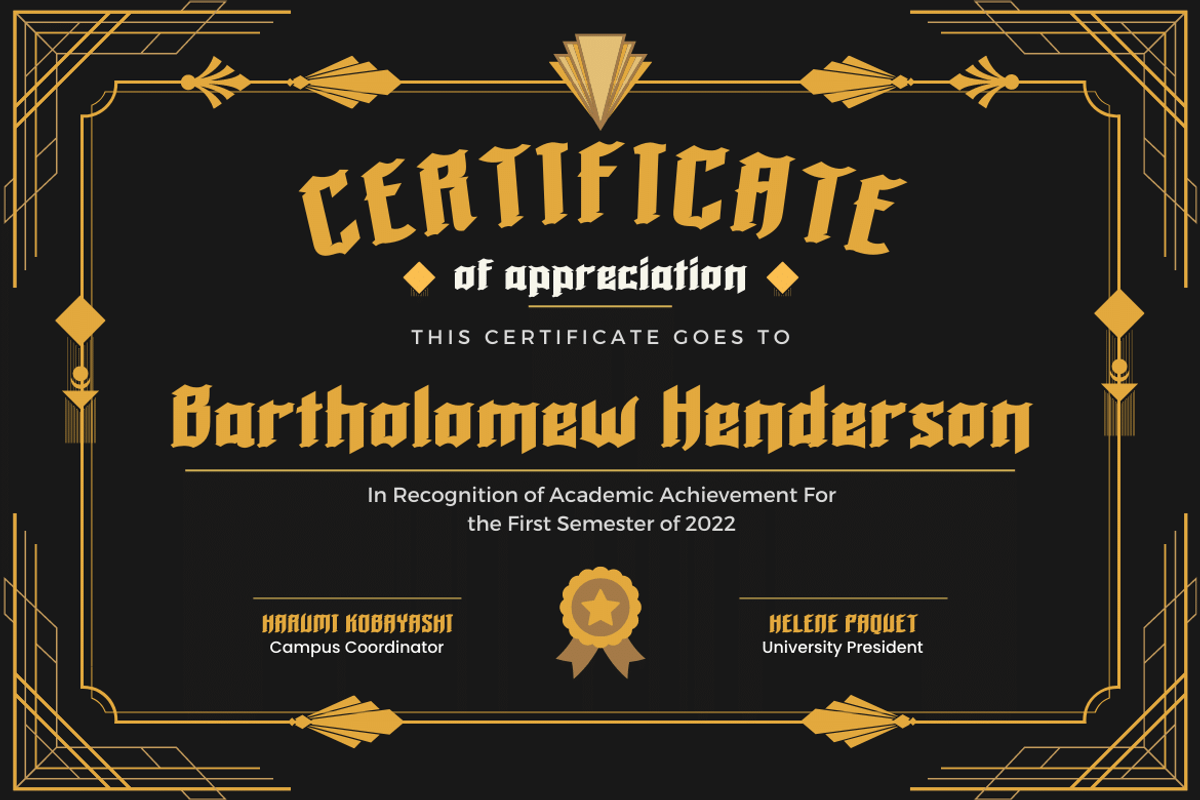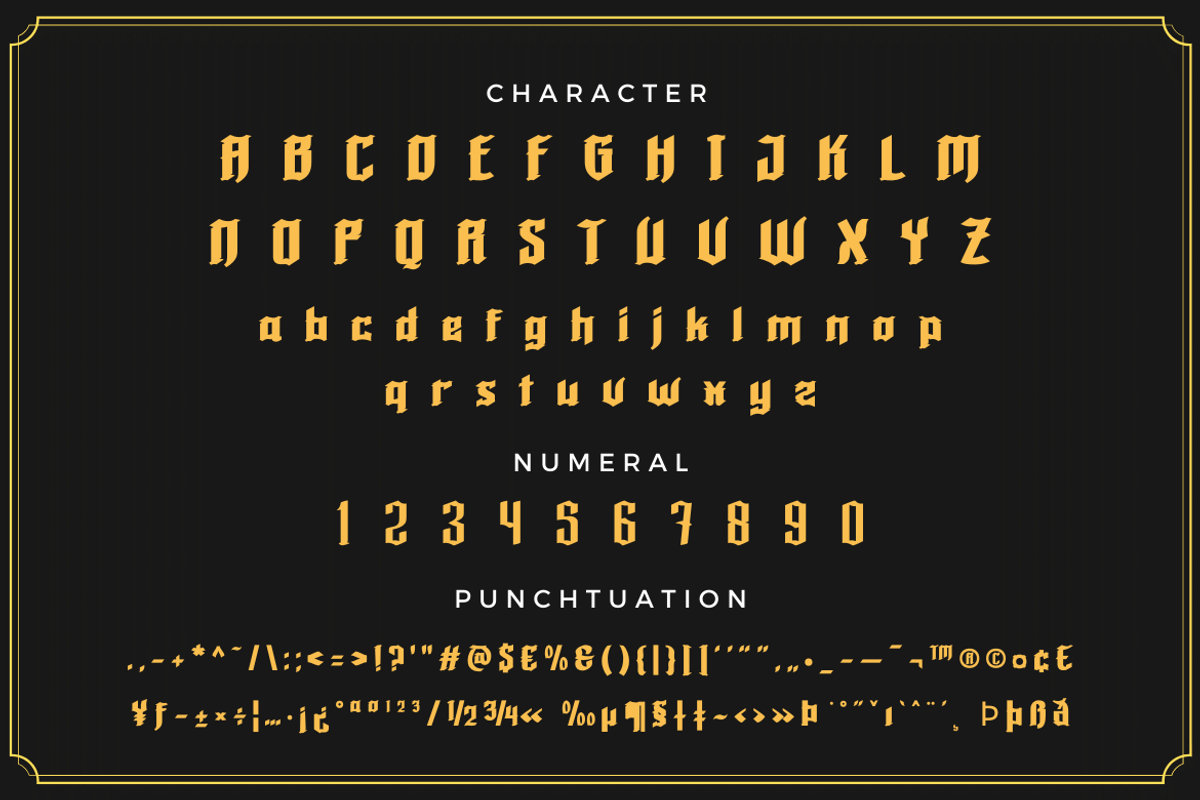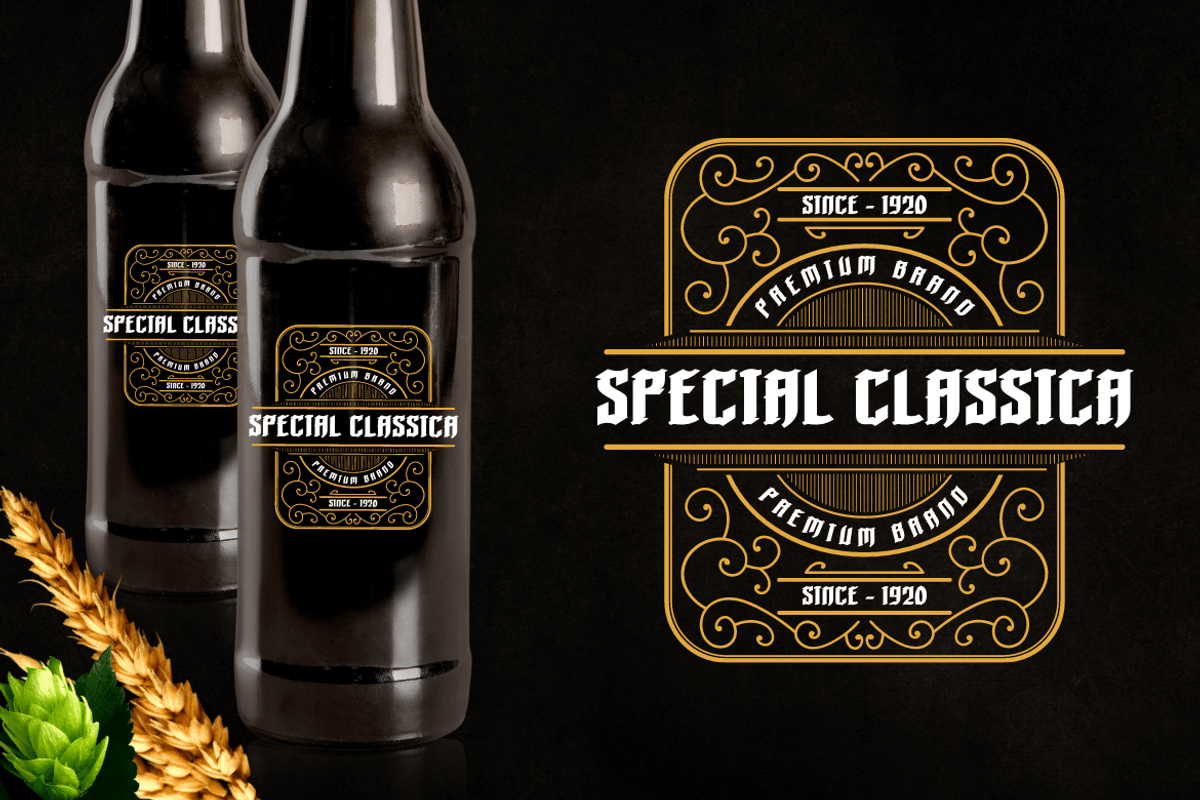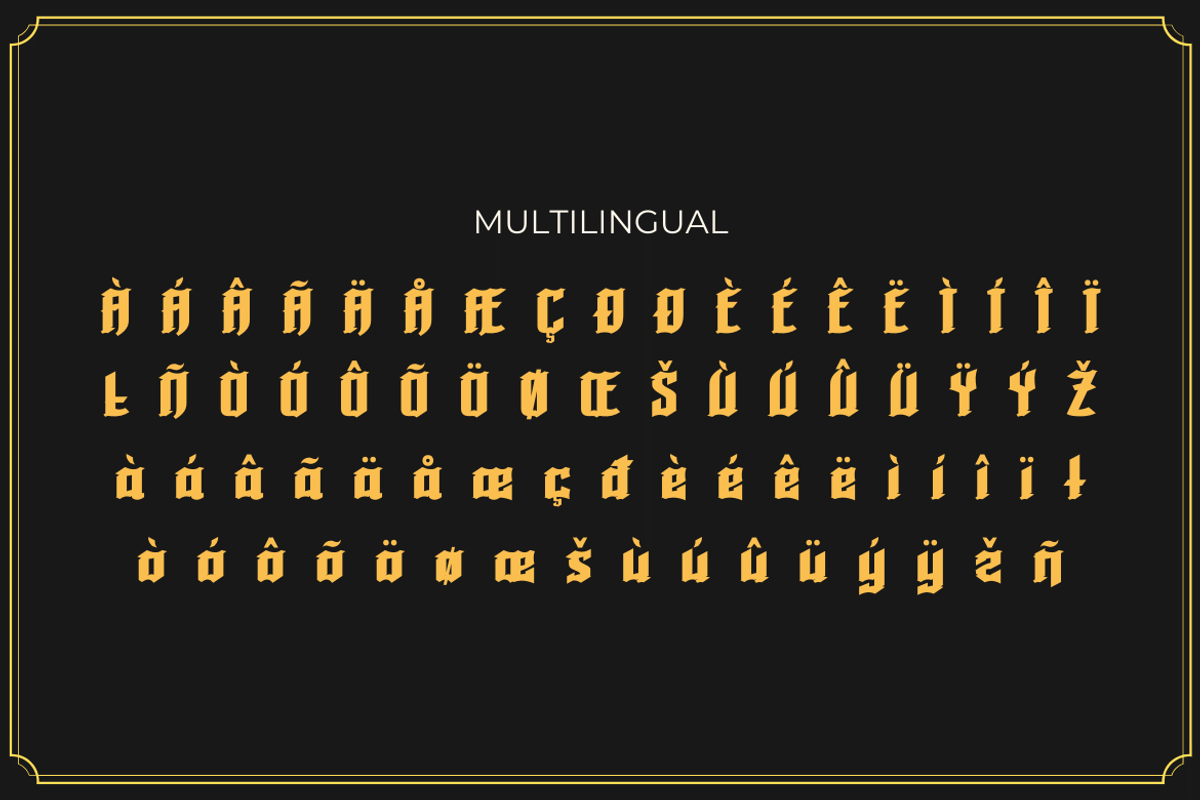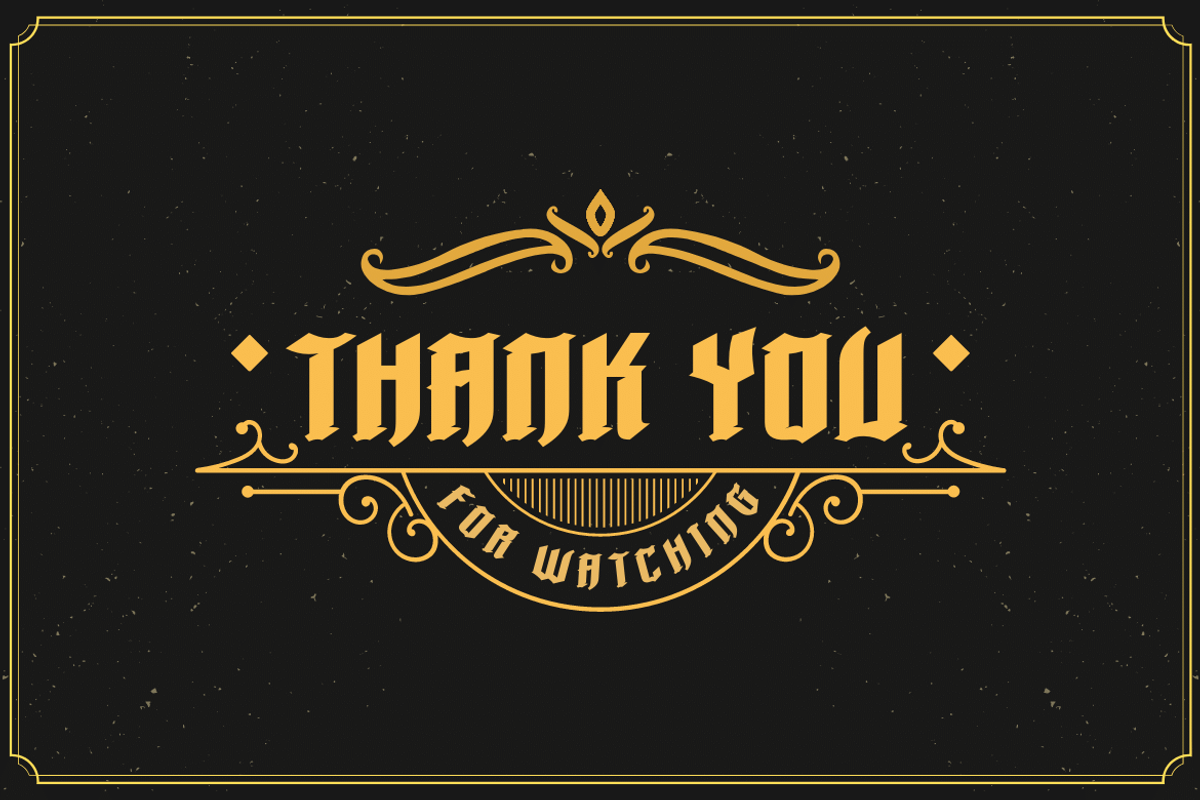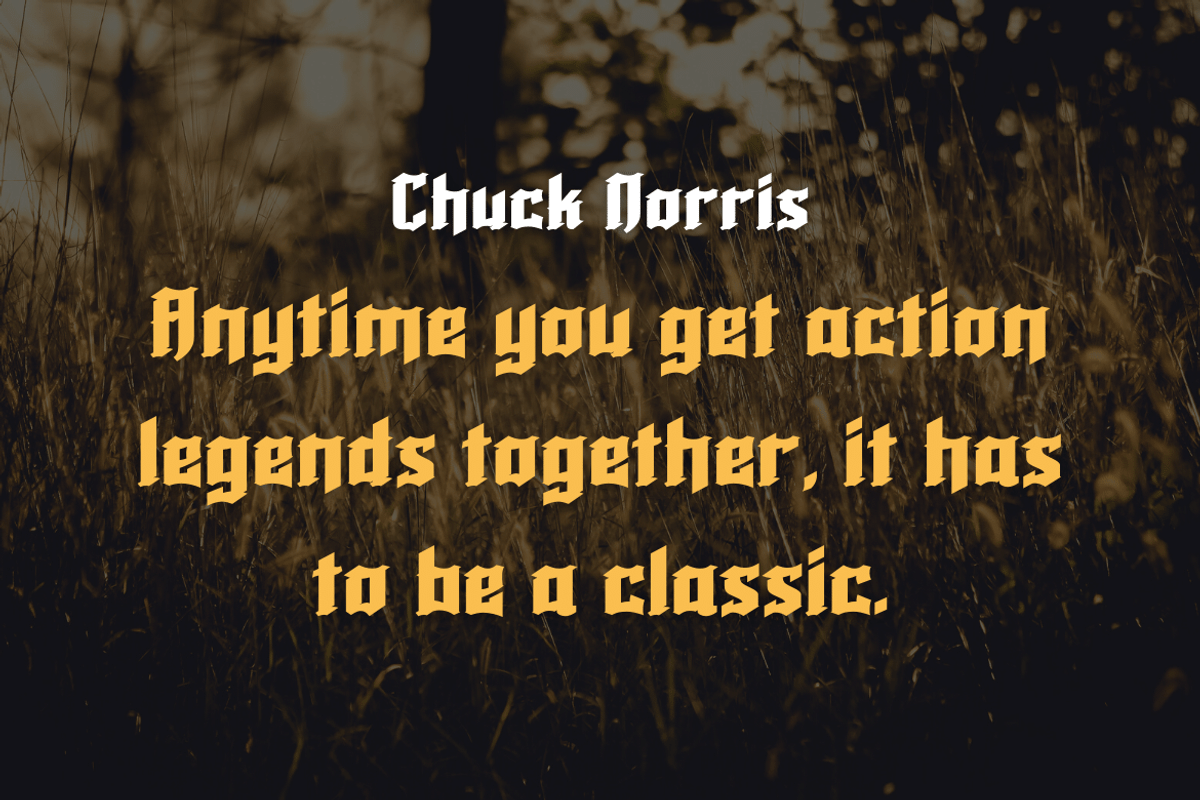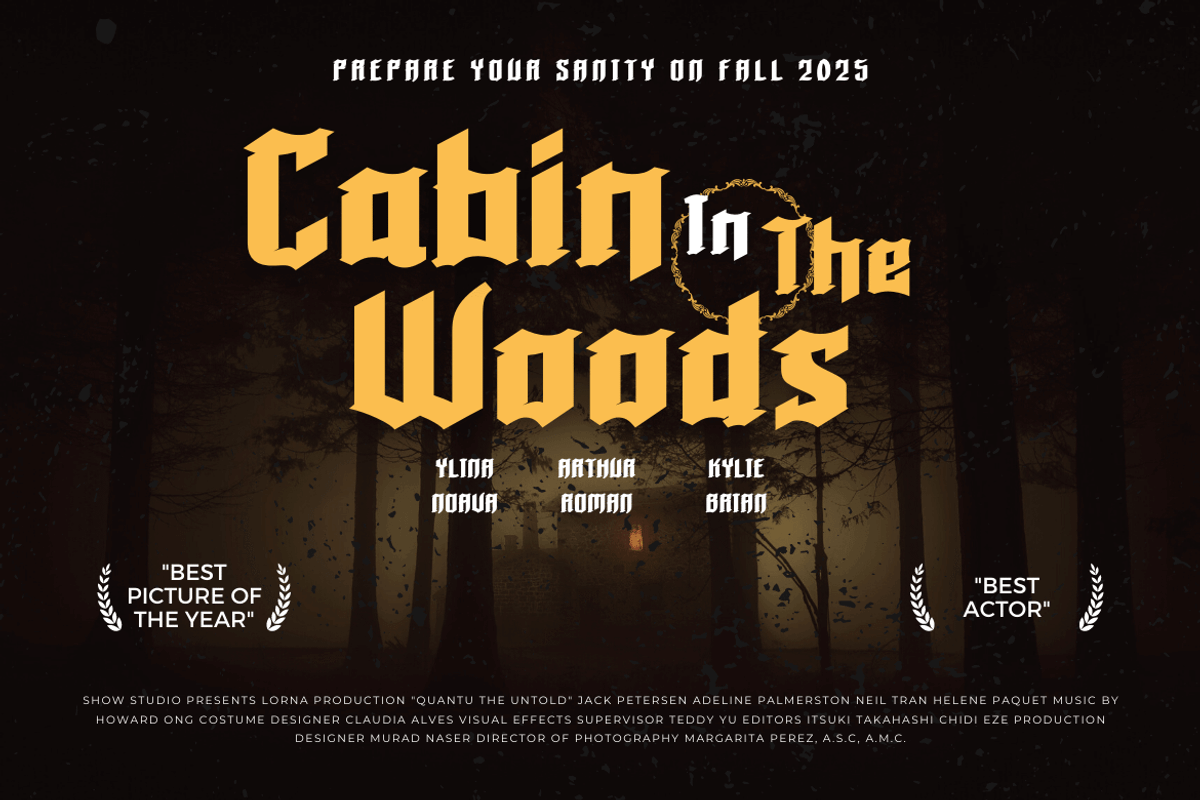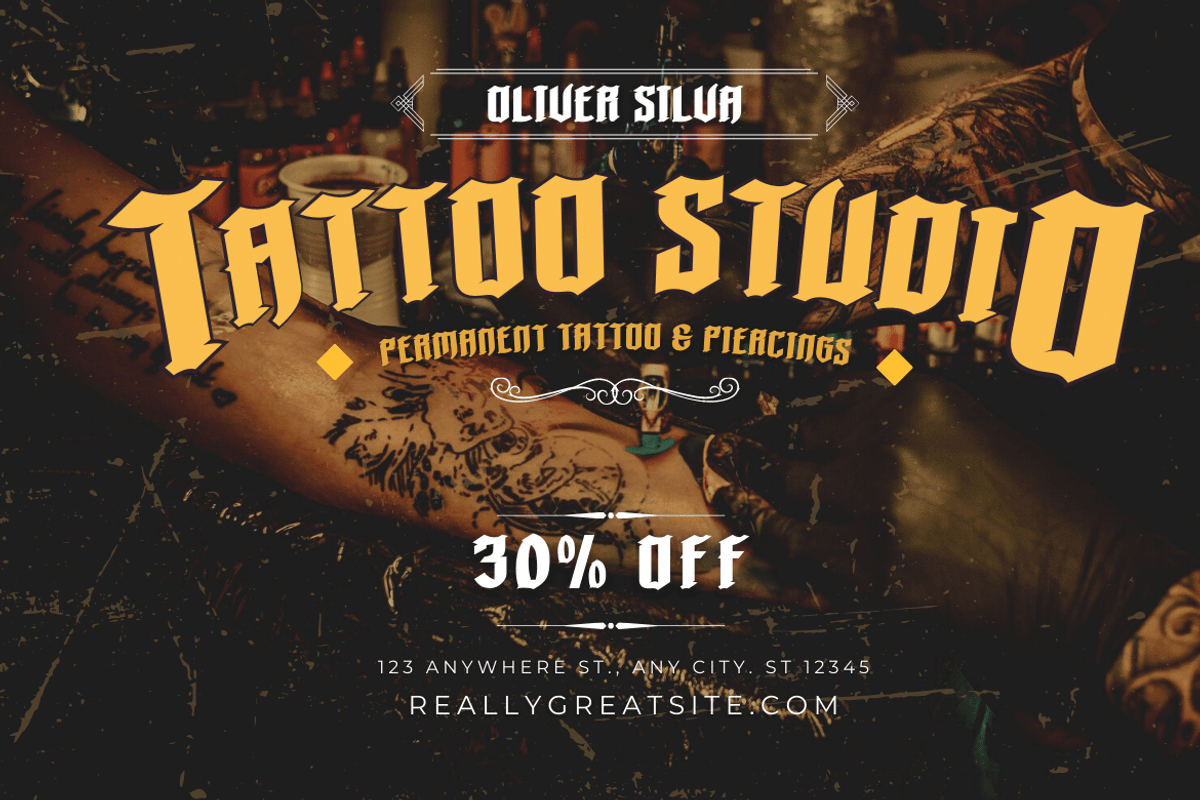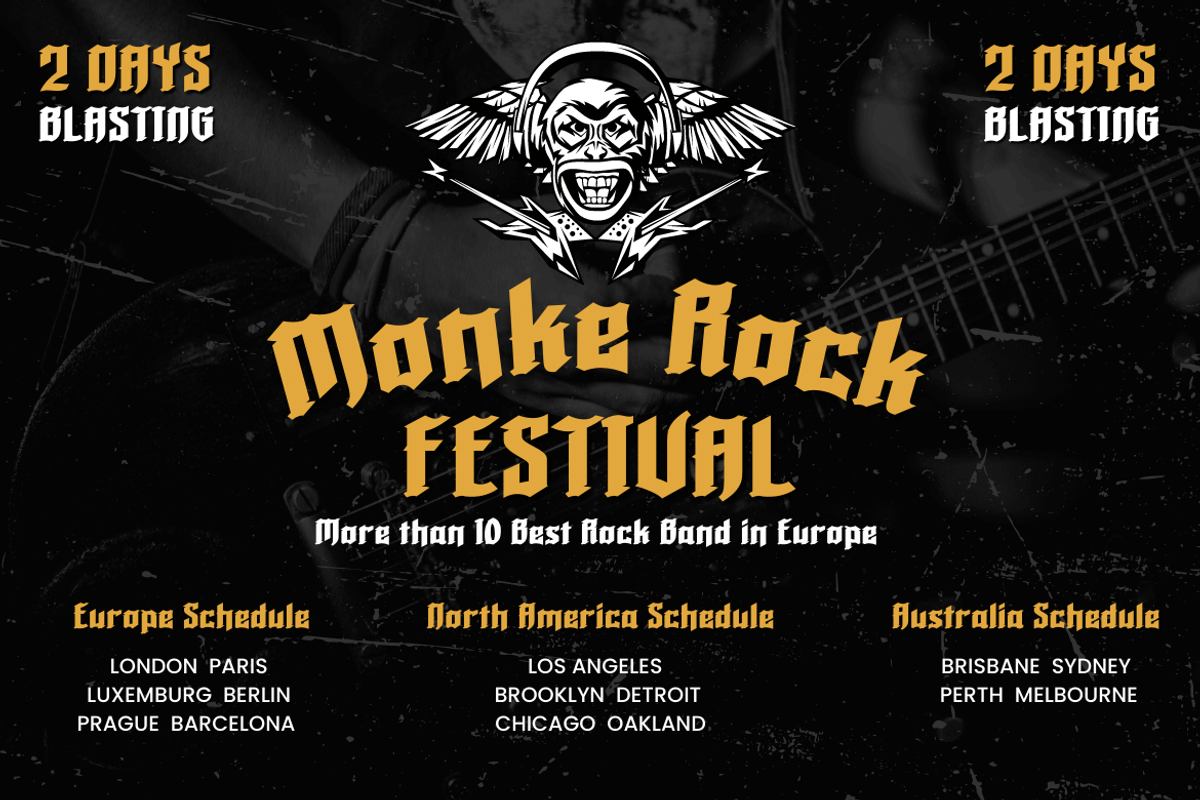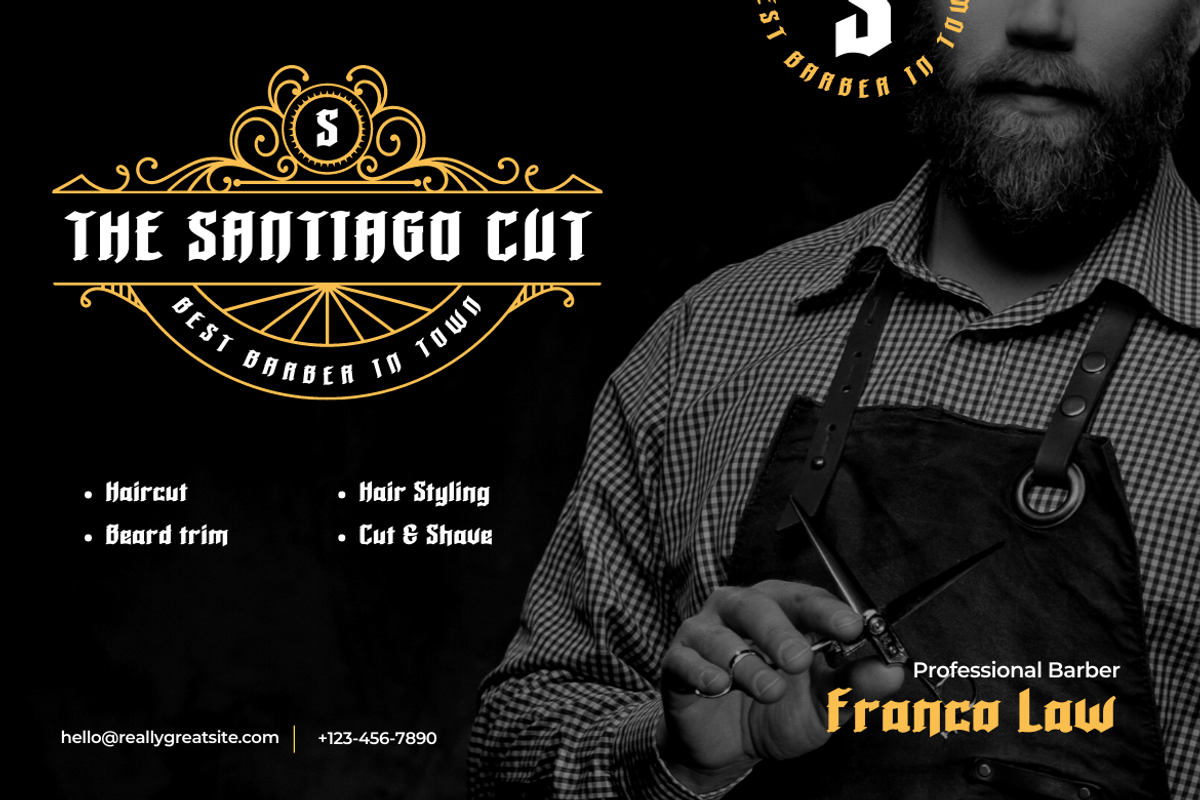
Roback
Introducing the Roback Font
Roback is a typeface inspired by the classic blackletter font style, resulting in bold and unique shapes. Perfect for vintage Victorian concept designs, this font is perfect for beverage and food packaging designs, pomade or barbershop designs, and other uses. Roback has been designed from scratch, with all letters included and full punctuation. This font is perfect for use in projects that need to be bold, and vintage but still have a premium class.